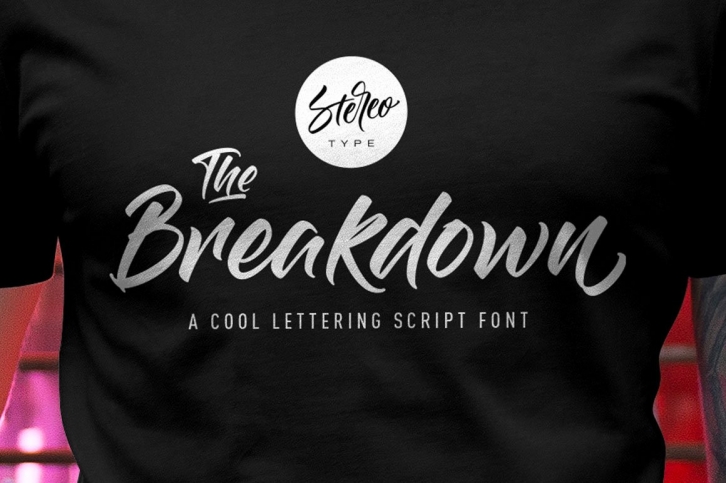
Introducing The Breakdown, my last script font, made from the work of the lettering artist Sean Delloro.
Try it for any of your DIY projects, cards, posters, packaging, web design, photos, scrapbooking, or anything hidden in your creative mind!